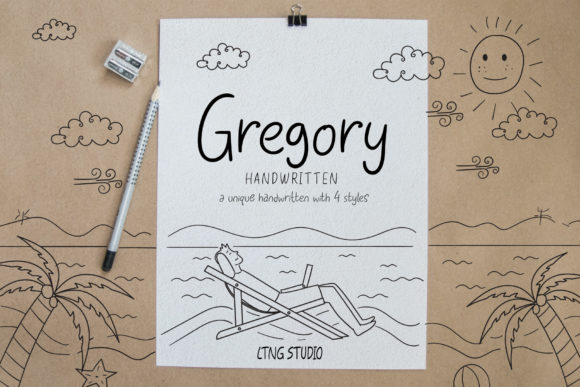
Welcome to the world of Gregory Handwritten Font, a captivating script typeface designed to evoke the essence of personal expression and heartfelt communication. Immerse yourself in the beauty of handwritten artistry, where each character dances upon the screen, carrying with it a story untold.
This exquisite font family, brought to life by the creative minds at LTNG, is a perfect reflection of individuality and authenticity. Each letterform has been crafted with meticulous attention to detail, capturing the nuances and charm of penmanship. Whether you're a designer, a blogger, or simply someone who appreciates the art of handwritten expression, Gregory Handwritten Font is an indispensable tool for adding a touch of warmth and personality to your digital creations.
With its enchanting script style, Gregory Handwritten Font is the perfect choice for creating personalized notes, heartfelt messages, and captivating social media posts. Its flowing lines and elegant flourishes add a touch of grace and sophistication to any project. Whether you're crafting a heartfelt letter to a loved one, designing a whimsical greeting card, or creating eye-catching social media graphics, this font is sure to leave a lasting impression.
Beyond its aesthetic appeal, Gregory Handwritten Font is also a remarkably versatile font. Its playful and expressive nature makes it ideal for a wide range of design applications, from branding and marketing materials to wedding invitations and children's books. Its unique letterforms and alternate glyphs provide endless opportunities for customization, allowing you to create truly unique and memorable designs.
But what truly sets Gregory Handwritten Font apart is its ability to evoke emotion and create a lasting connection with your audience. Its handwritten style has an inherent warmth and charm that resonates with viewers, creating a sense of intimacy and connection. Whether you're using it for personal or professional projects, this font has the power to captivate and engage your audience, leaving them with a lasting impression.